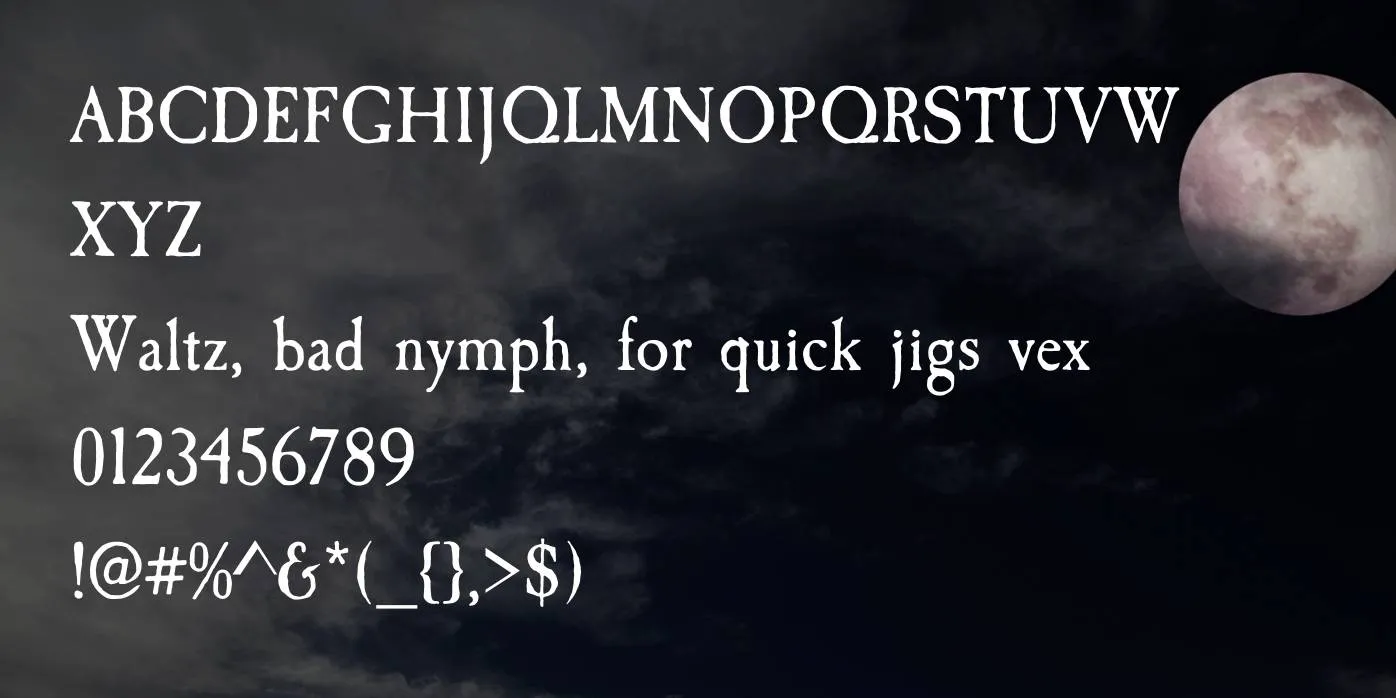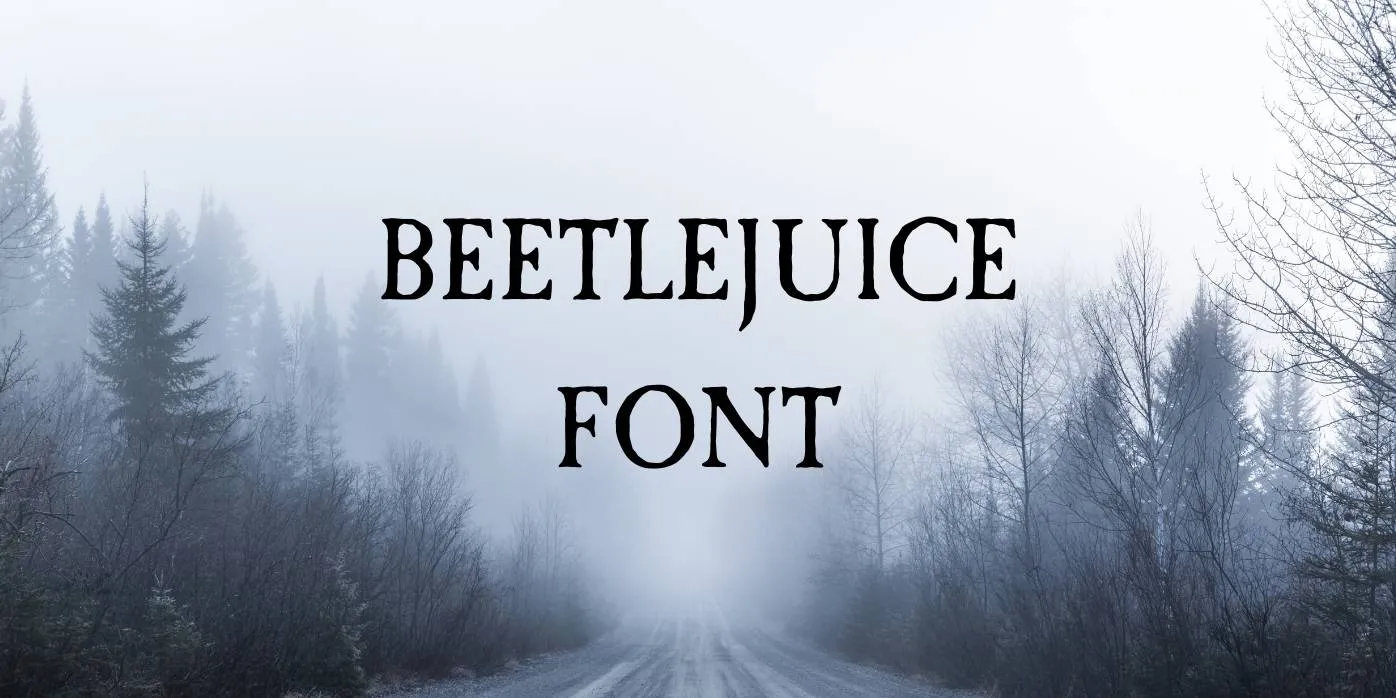
Beetlejuice Font
Beetlejuice Font is the most unique and memorable typeface that belongs to a Grunge typeface family. It was specially created for the American Fantasy comedy film that was released on the 30th of march and 1988. It is a logo font that was especially used for that movie’s poster. The font family has uppercase letters and lowercase letters, Numbers and mandatory symbols, etc.
It supports many international languages for international users. It has useful styles and weights include Caslon Antique, Caslon Antique Bold, Caslon Antique Bold-Italic, Caslon Antique Italic and all the weights have stunning features and functions that look awesome on the posters or banners.